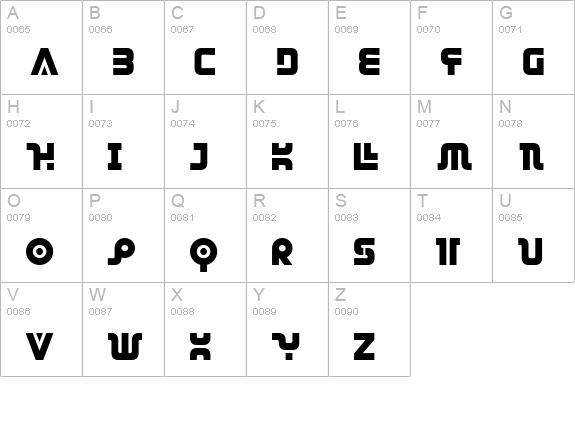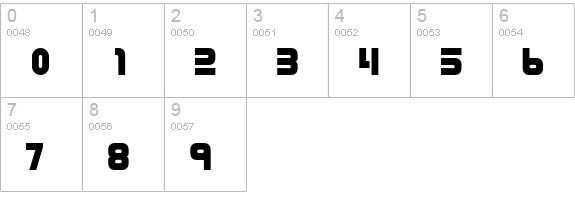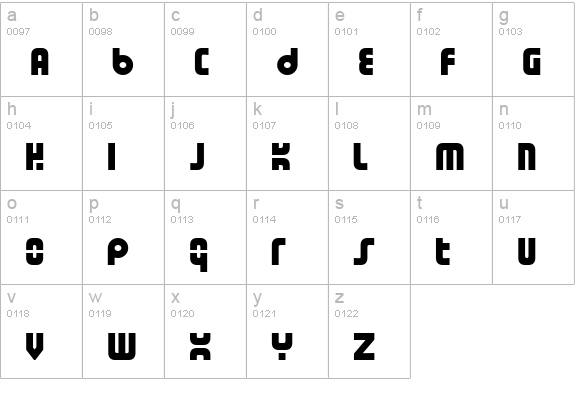
Dendritic Voltage Font Details
Dendritic Voltage font is a stunning display typeface that exudes a dynamic and electrifying energy. Its intricate and branching design elements give it a unique and futuristic look, making it perfect for projects that require a modern and bold aesthetic. The sharp angles and intricate details of this font make it stand out and grab attention with its edgy and stylish appearance. Dendritic Voltage font is not only visually striking but also highly versatile, suitable for a wide range of design projects including posters, logos, branding, and more. Its sleek and contemporary design will add a touch of sophistication and innovation to any creative work. Best of all, Dendritic Voltage font is available for free download at FontsMarket.com, making it easily accessible to designers and creatives looking to elevate their projects with a distinctive and eye-catching typeface. Don't miss out on this opportunity to enhance your designs with the electrifying charm of Dendritic Voltage font.